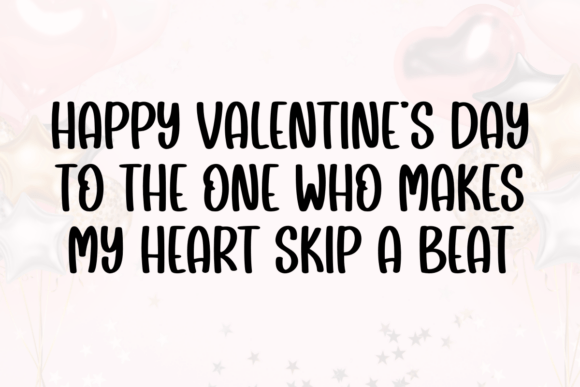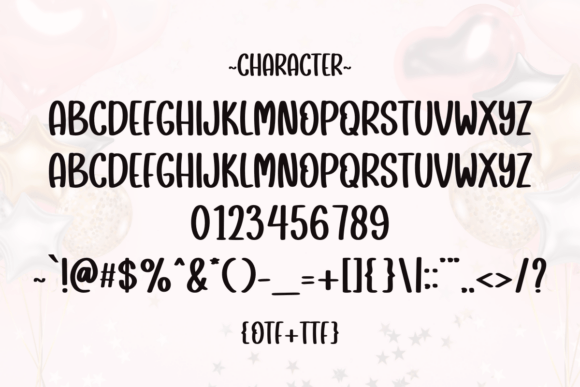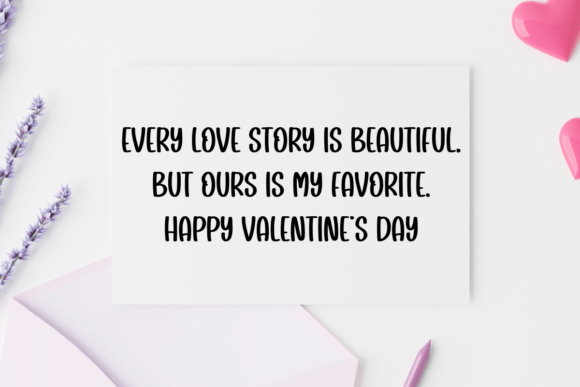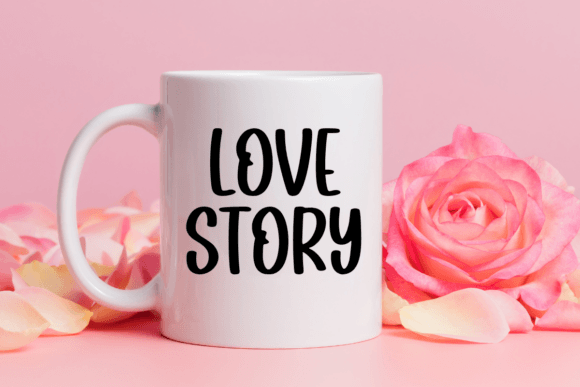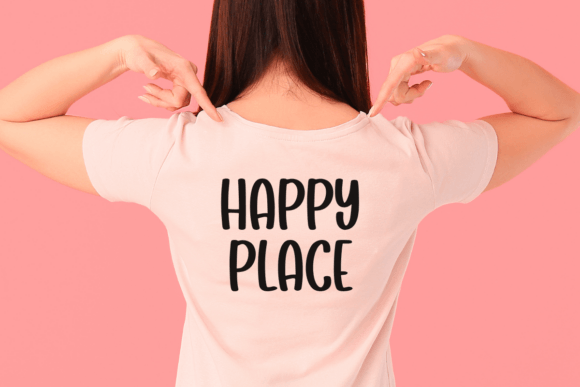
Introducing Happy Memories Font: The Perfect Addition to Your Design Collection
Are you tired of using the same old fonts in your designs? Look no further! Happy Memories Font is here to bring a touch of fun and playfulness to your creative projects. This sans serif font is designed to make your designs stand out with its natural and unique style, making it incredibly versatile and suitable for a wide range of applications.
What Makes Happy Memories Font So Special?
Happy Memories Font is a fun and playful sans serif font that is sure to capture the attention of your audience. Its unique style is perfect for designers and crafters who want to add a personal touch to their work. Whether you’re creating a children’s book, a greeting card, or a social media post, Happy Memories Font is the perfect choice.
One of the best things about Happy Memories Font is its versatility. It can be used in a variety of designs, from playful and fun to elegant and sophisticated. The only limit is your imagination! With Happy Memories Font, you can create unique and eye-catching designs that will leave a lasting impression on your audience.
Key Features of Happy Memories Font
- Fun and Playful: Happy Memories Font is designed to bring a touch of fun and playfulness to your designs.
- Unique Style: Its natural and unique style makes it incredibly fitting to a large pool of designs.
- Sans Serif: Happy Memories Font is a sans serif font, making it perfect for digital and print designs.
- Versatile: It can be used in a variety of designs, from playful and fun to elegant and sophisticated.
Happy Memories Font is perfect for designers and crafters who want to add a personal touch to their work. Whether you’re creating:
- Children’s books and educational materials
- Branding and packaging materials
- Blog posts and website content
Happy Memories Font is the perfect choice. Its unique style and versatility make it suitable for a wide range of applications, and it’s sure to bring a touch of fun and playfulness to your designs.
Why Choose Happy Memories Font?
There are many fonts to choose from, but Happy Memories Font stands out from the rest. Here are just a few reasons why:
- Unique Style: Happy Memories Font has a unique style that will make your designs stand out.
- Easy to Read: Its sans serif design makes it easy to read, even at small sizes.
- Versatile: It can be used in a variety of designs, from playful and fun to elegant and sophisticated.
- High-Quality: Happy Memories Font is a high-quality font that will enhance your designs.